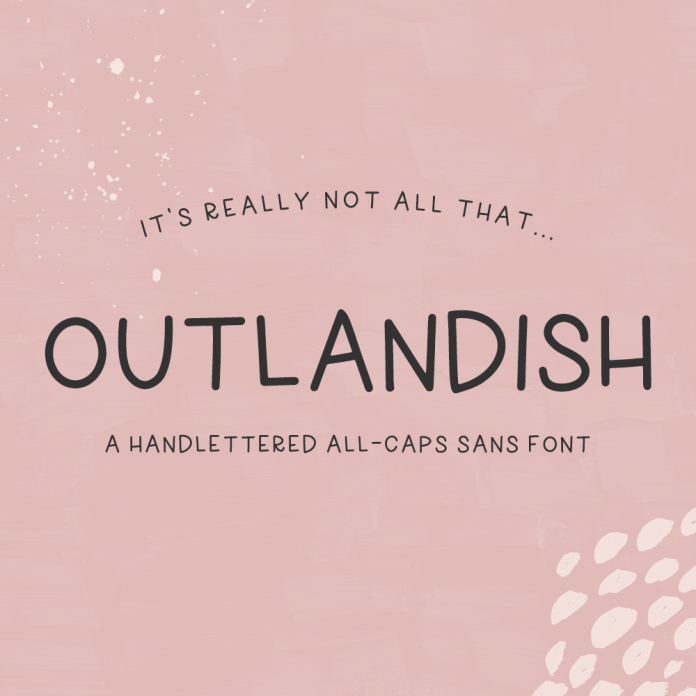
Outlandish All Caps Sans Font
Meet Outlandish, a neat handwritten all-caps sans font. Outlandish has clean lines with a cute personality, making it an excellent choice for all types of projects. Use Outlandish with higher tracking values for a different look! Outlandish Sans is best for: - quote graphics for social media - website design + website accents requiring a legible handwritten touch - clean print design, like magazines + flyers - labels & product packaging - logos + branding Outlandish includes: - all caps characters programmed in both upper & lowercase spots - numbers + punctuation - Western European Language Support - PUA-encoding